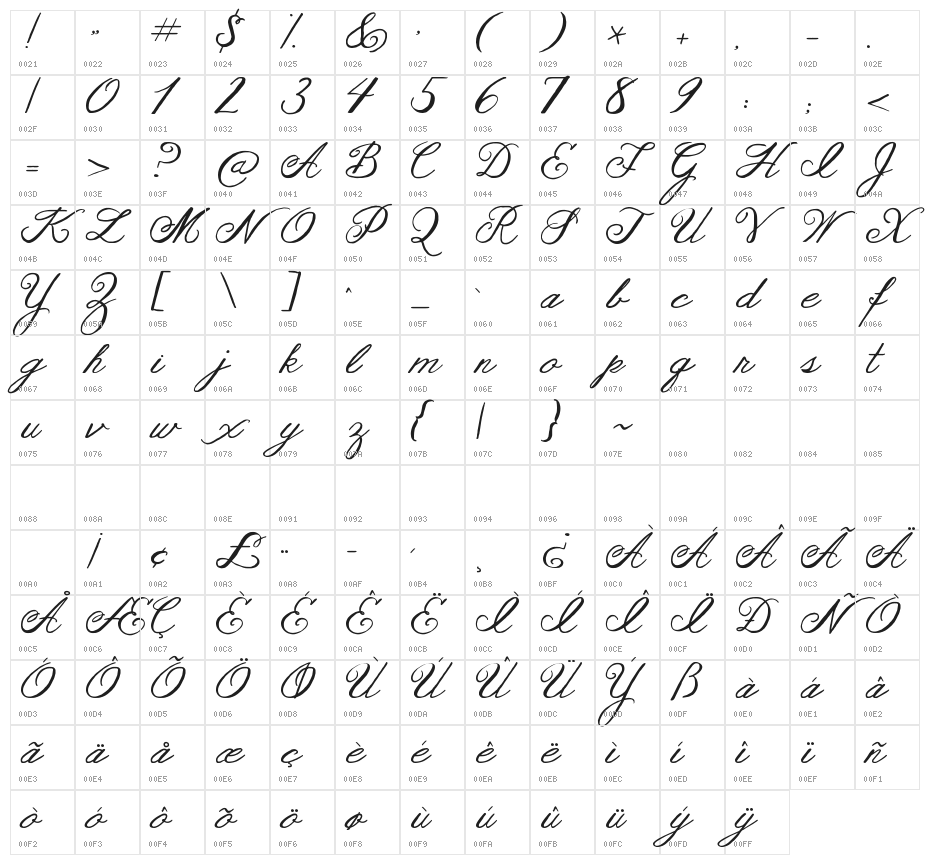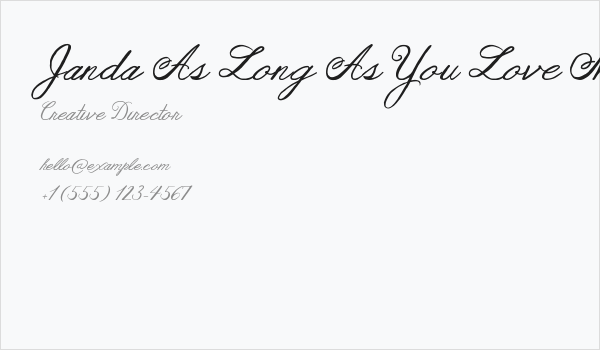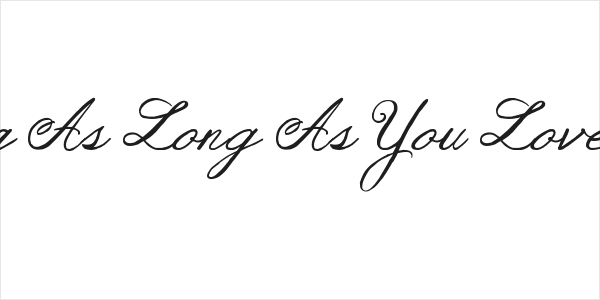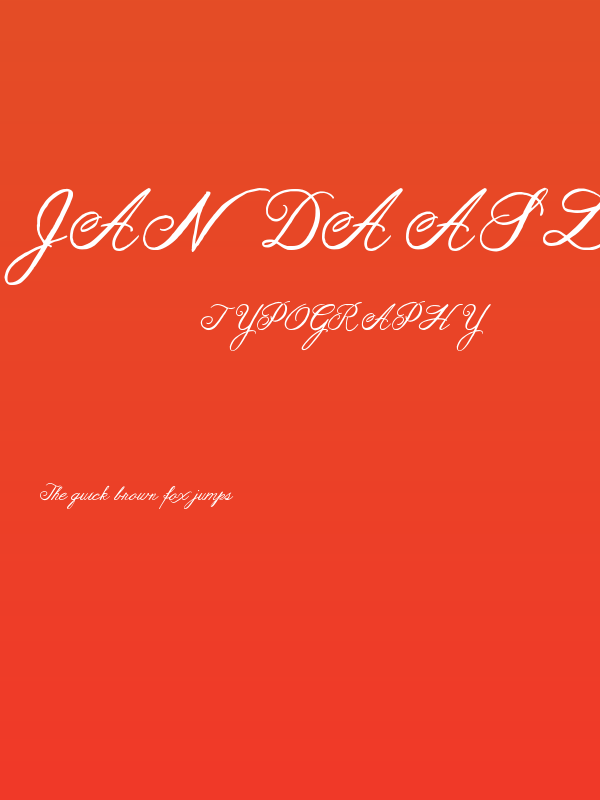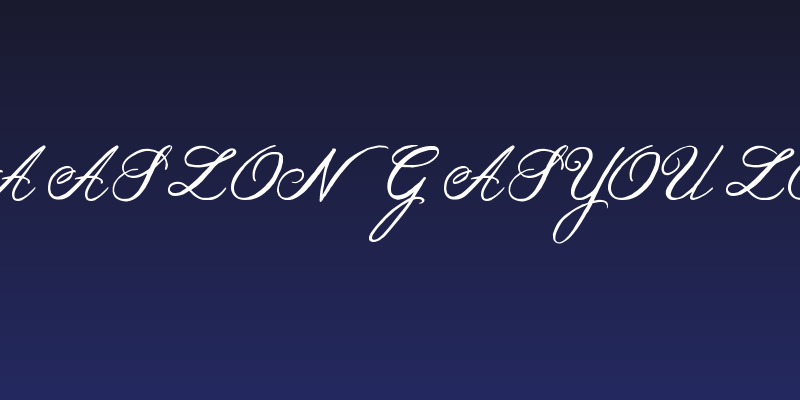
Janda As Long As You Love Me Font
Janda As Long As You Love Me Description
This font exudes elegance and sophistication with its flowing, cursive style. The characters are intricately designed, featuring smooth curves and delicate loops that give it a handwritten feel. The uppercase letters are slightly more ornate, with flourishes that add a touch of grandeur. The lowercase letters maintain a consistent flow, making it ideal for creating seamless connections between characters. Numbers and special characters are crafted with the same attention to detail, ensuring a cohesive look throughout. This font is perfect for projects that require a personal, yet polished touch.
| Overall Style | Elegant, Handwritten |
| Proposed Projects | Ideal for wedding invitations, greeting cards, branding, and elegant signage. |